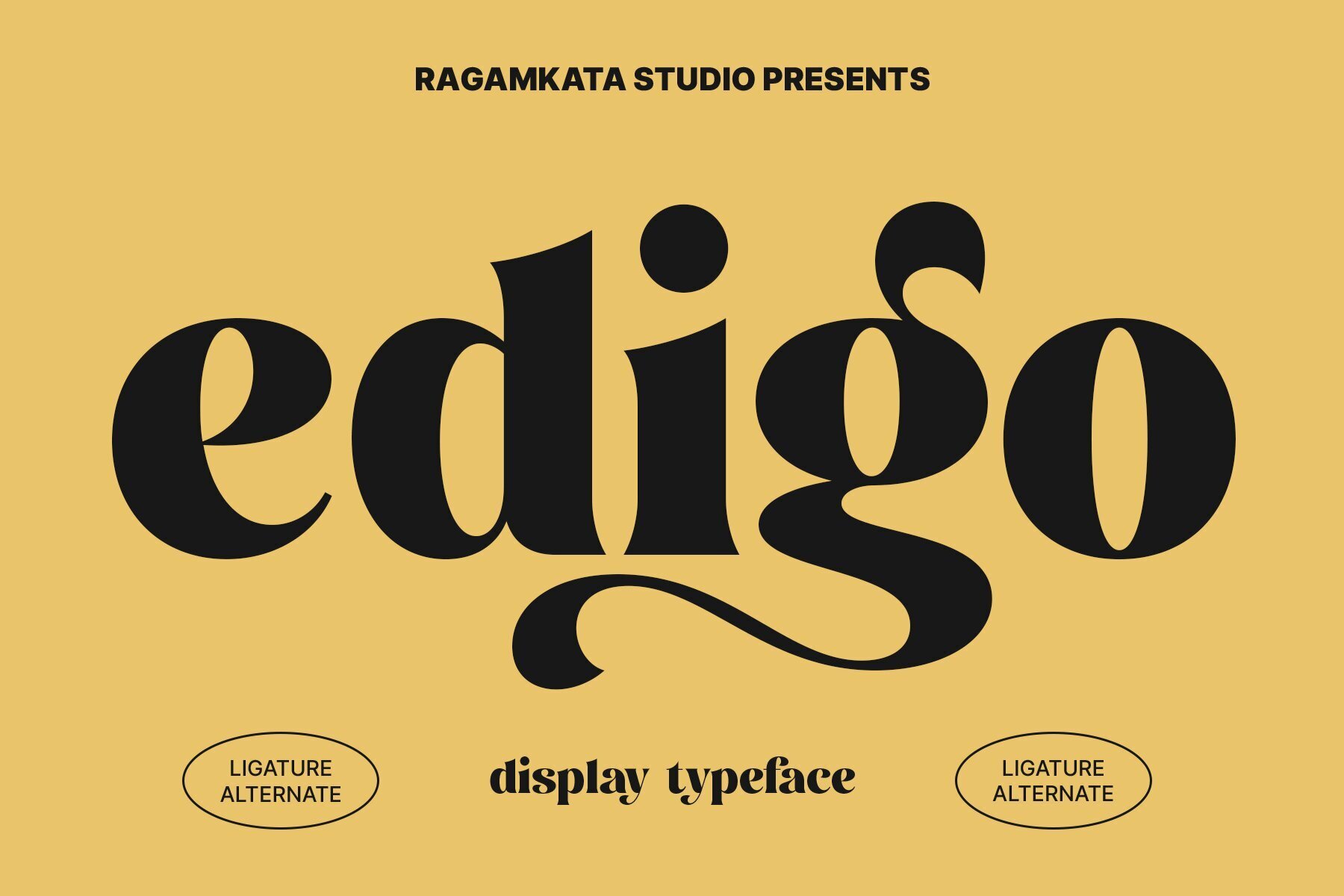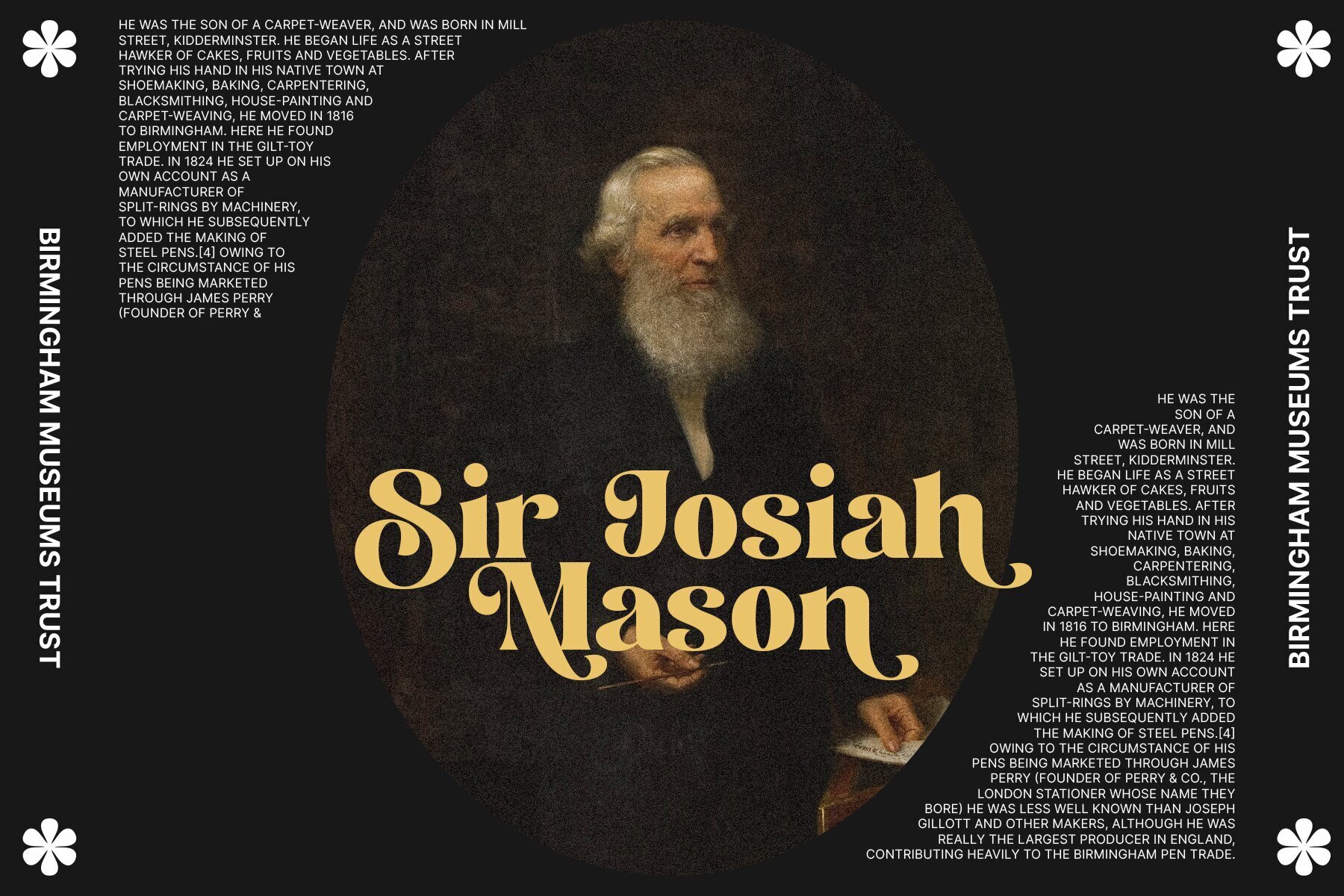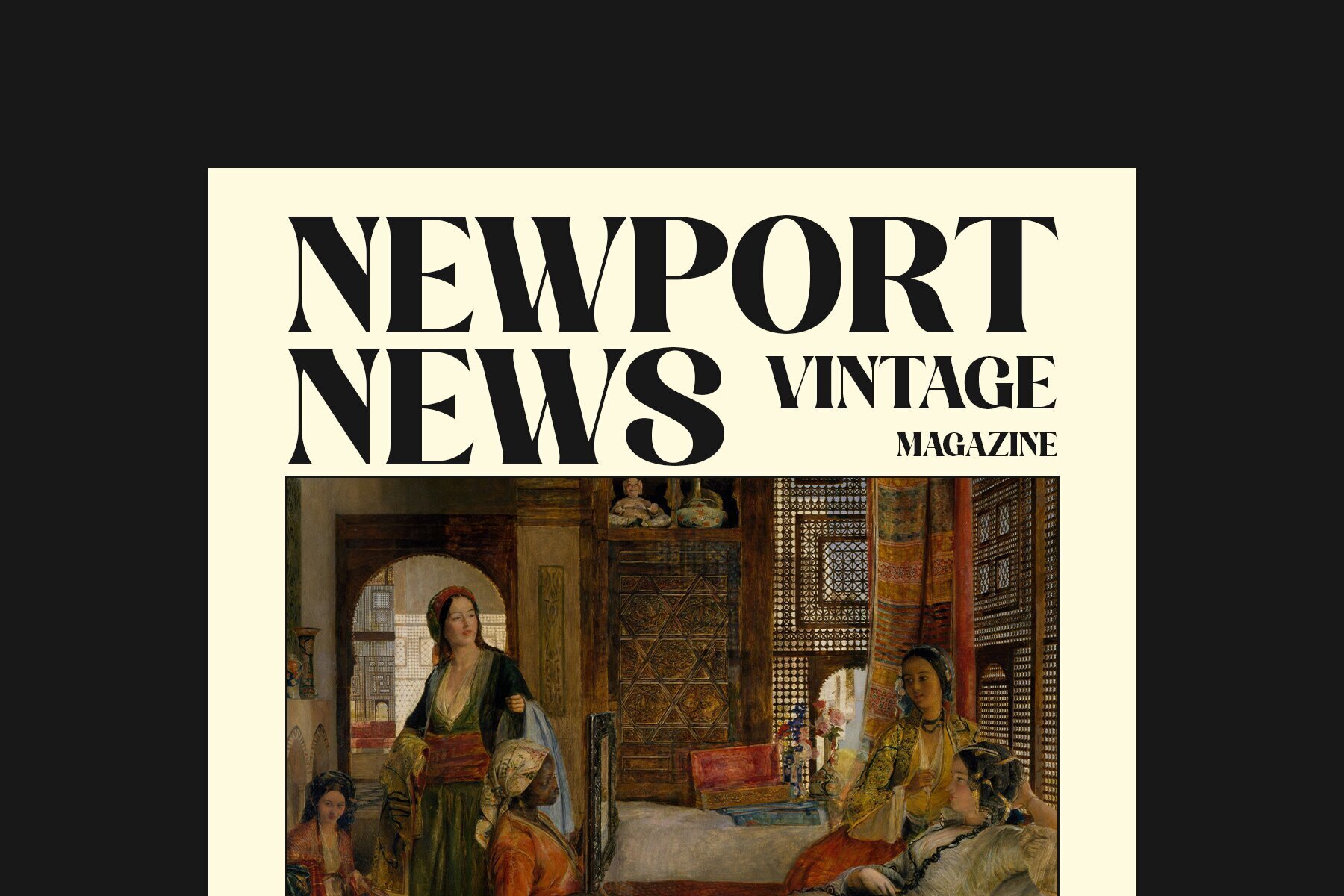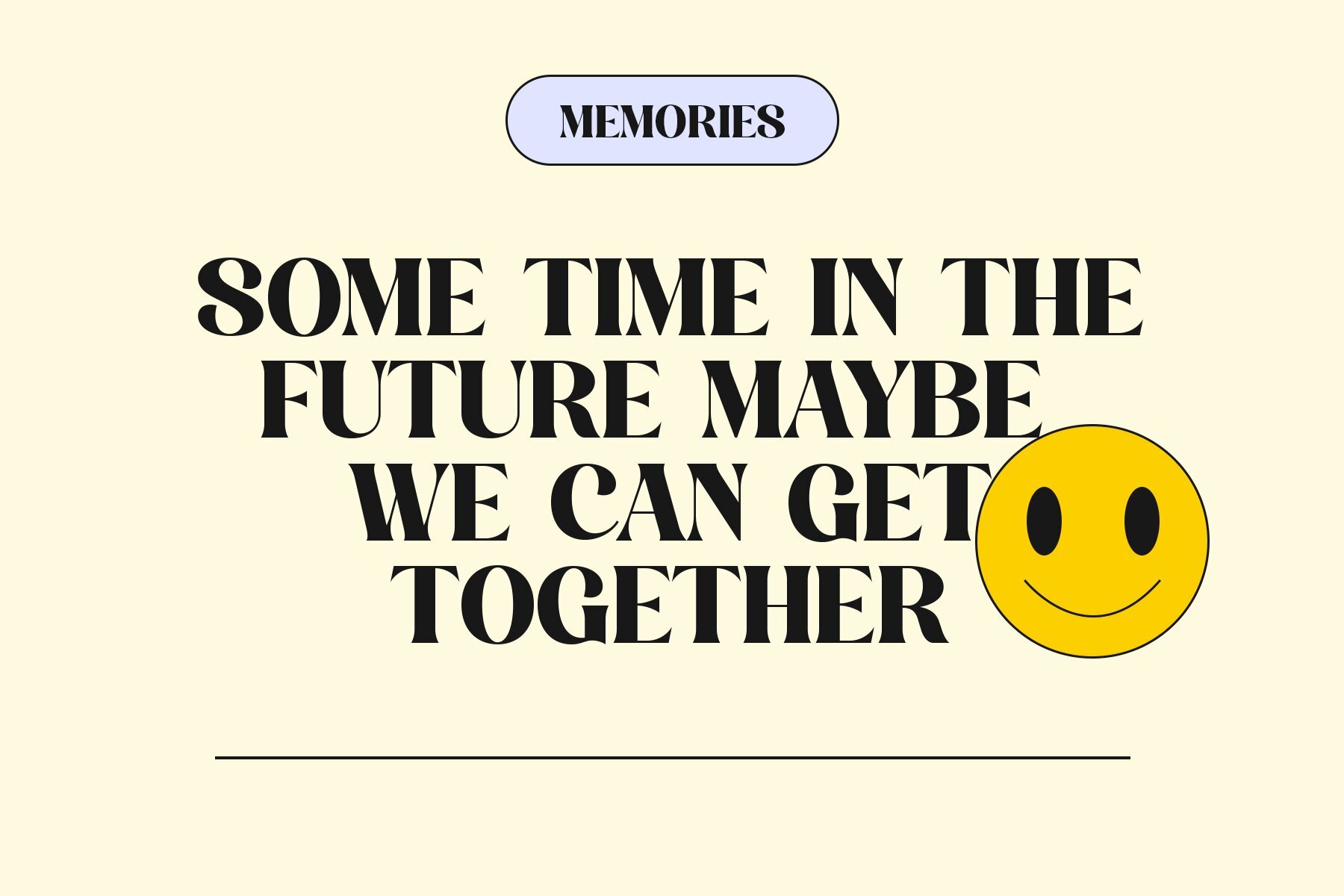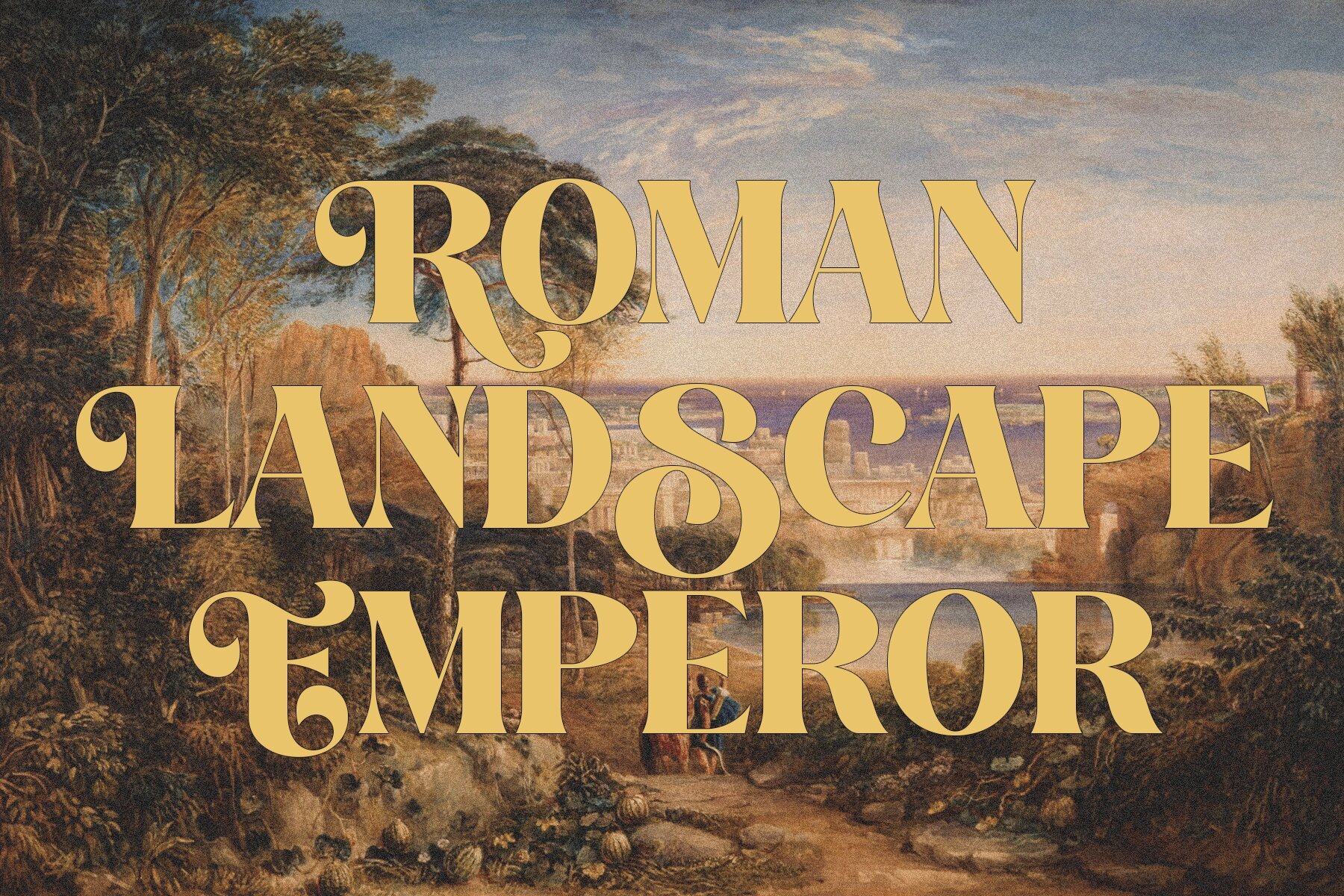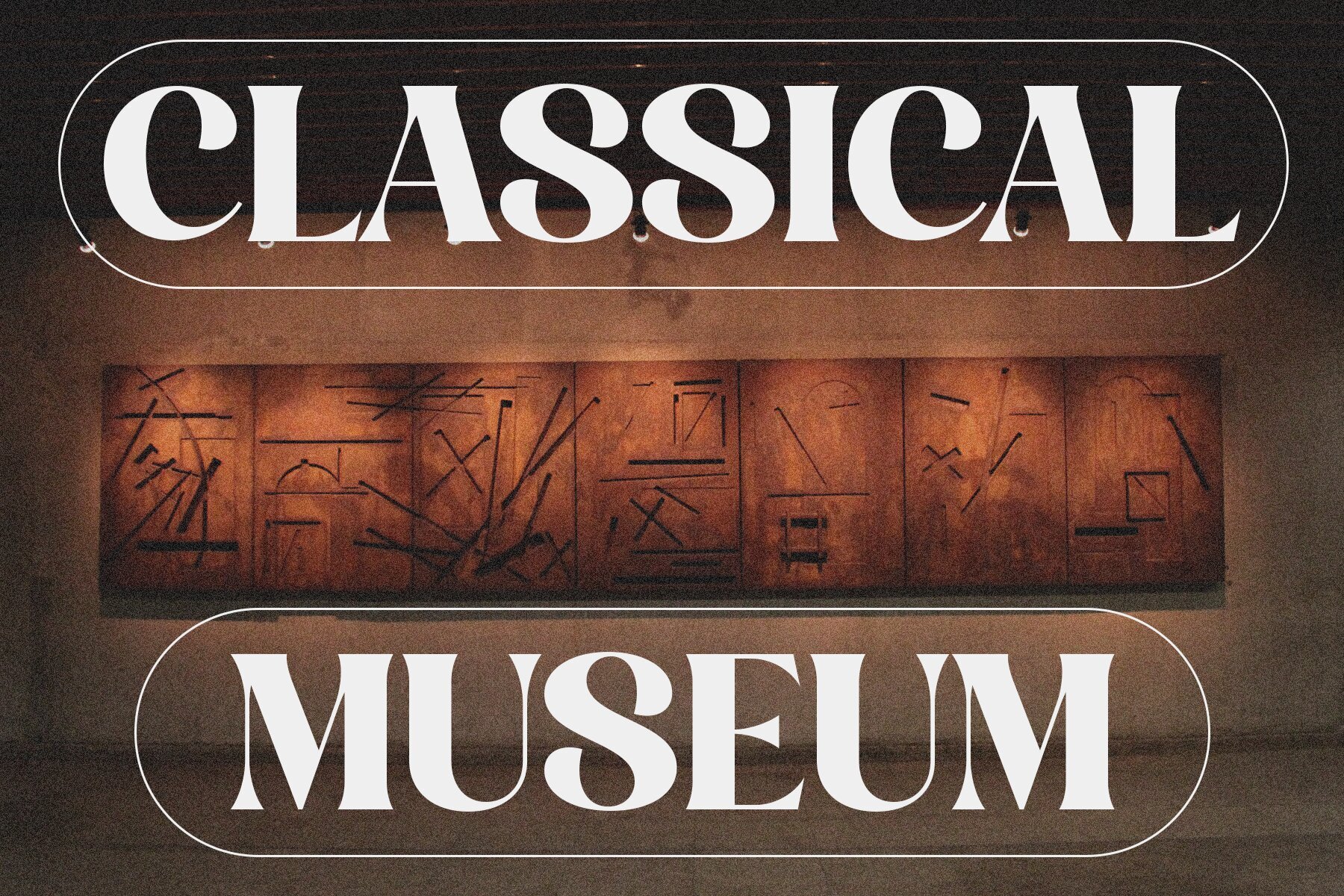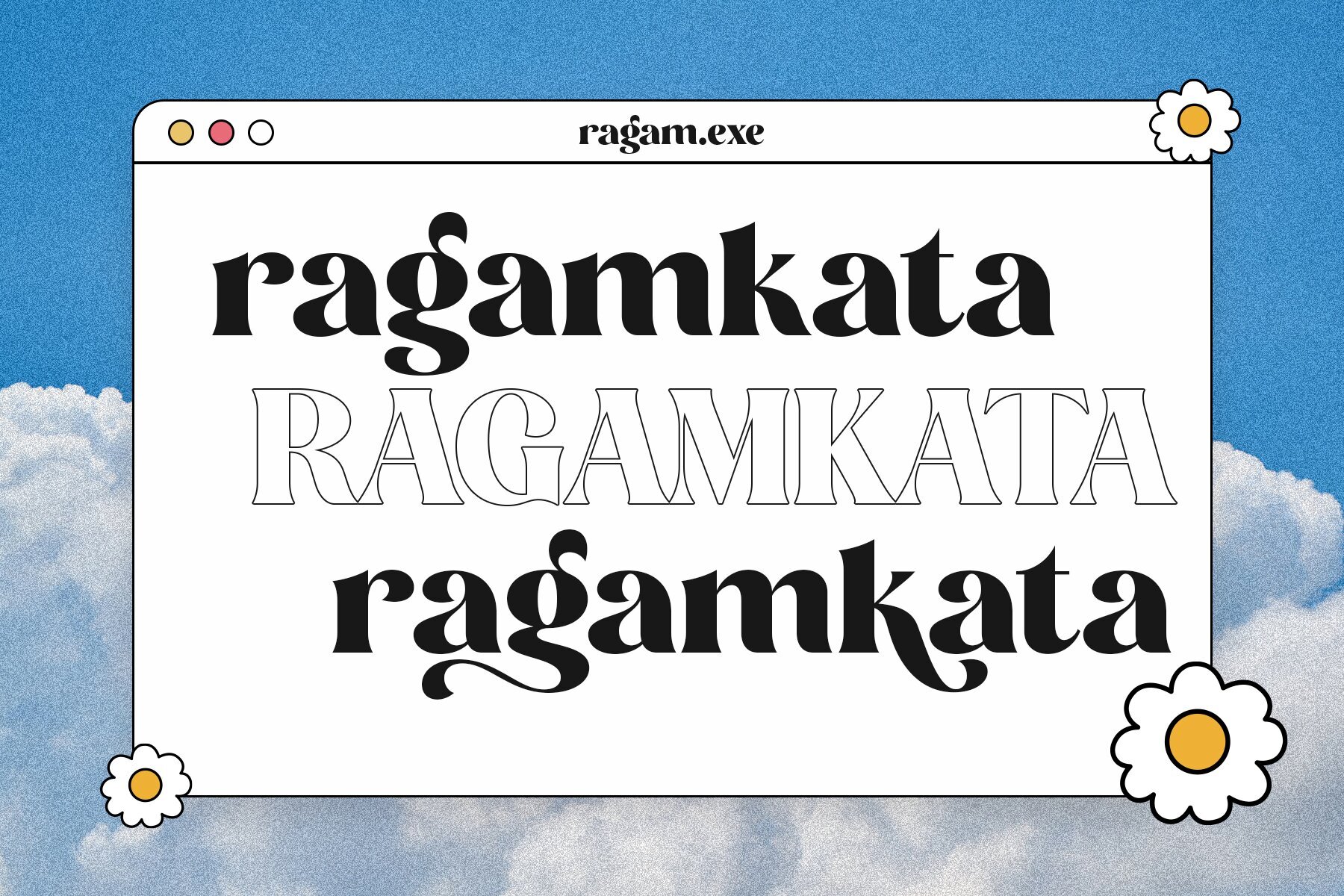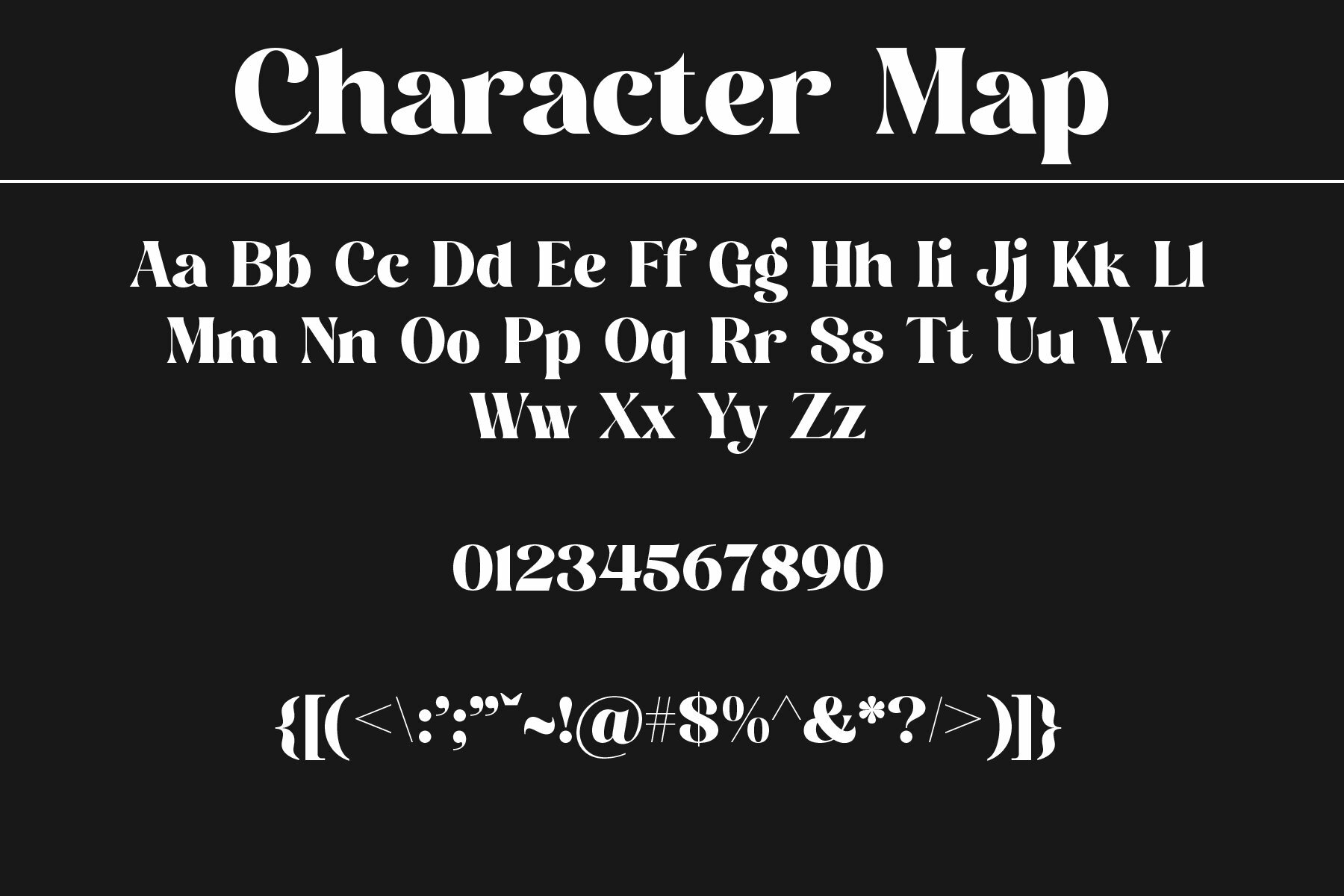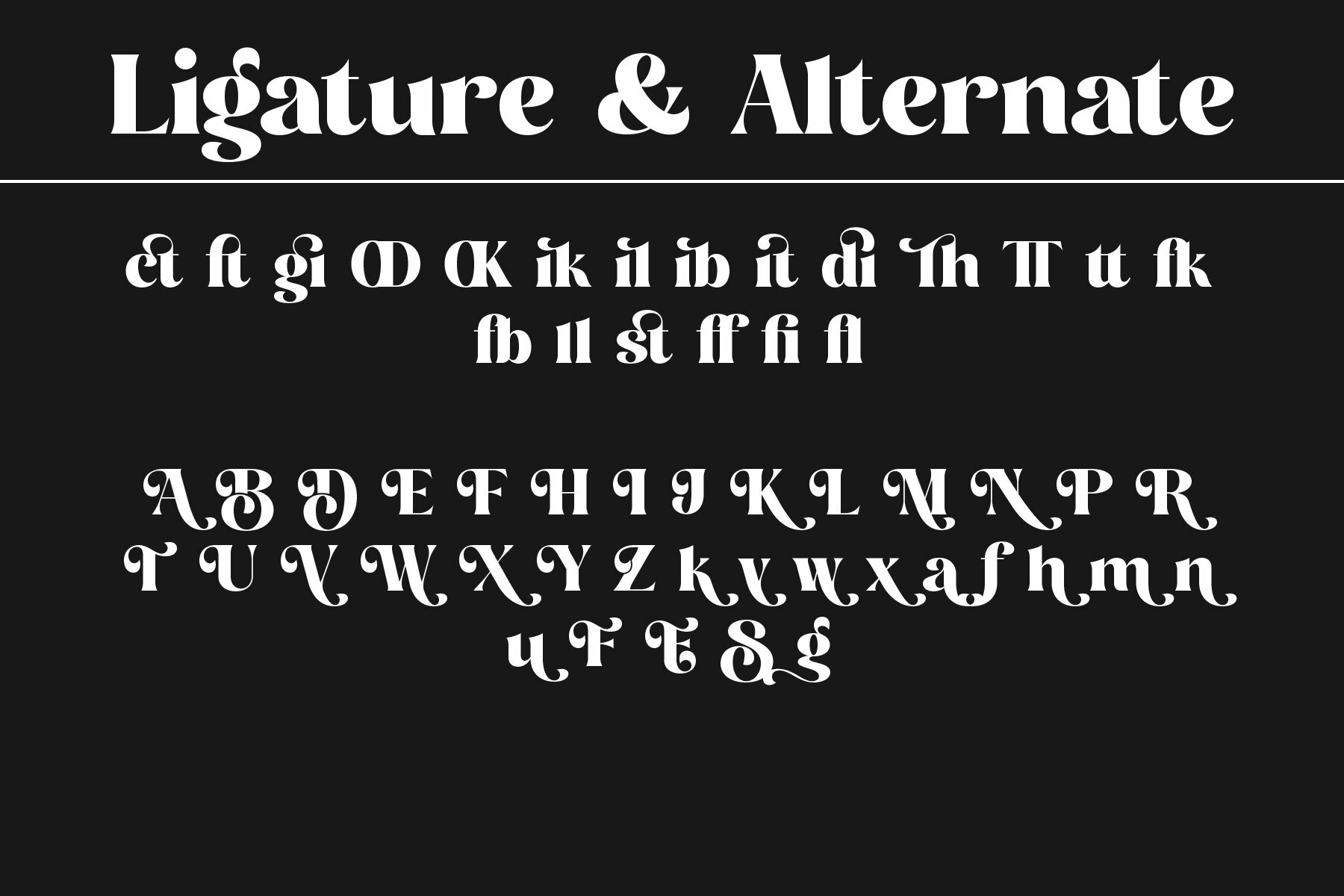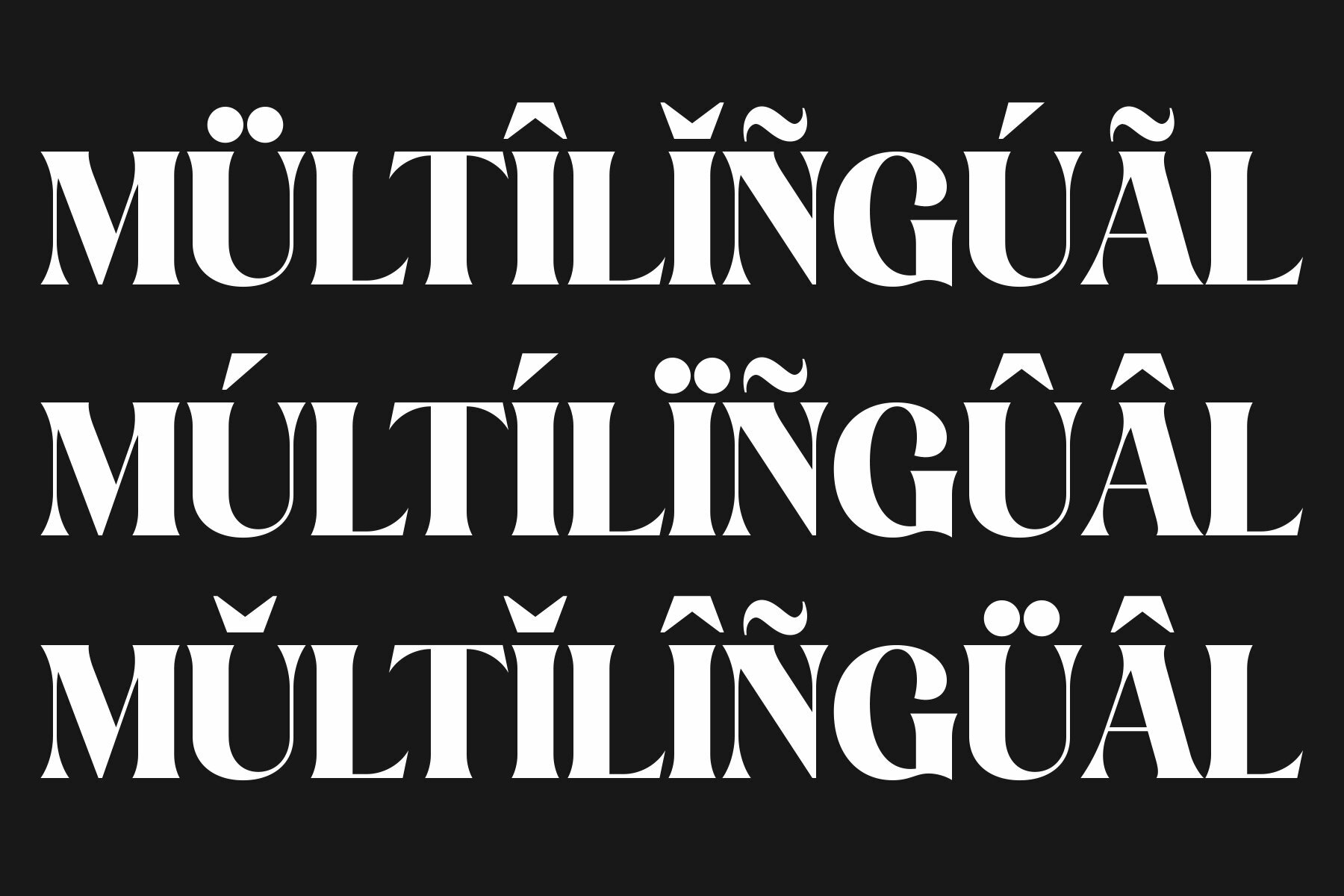
Edigo Font
Edigo Regular
Edigo seamlessly melds modern aesthetics with retro chic, creating a versatile display typography that brings a touch of classic elegance to any project. Its bold strokes and vintage-inspired curves make it an ideal choice for designers looking to blend nostalgia with contemporary style. Perfect for applications such as logos, headlines, and posters, Edigo is sure to leave an impression in today’s design landscape.
Featuring ligatures, alternates, and comprehensive character support including letters, numbers, symbols, and punctuation, Edigo requires no special software—it's even compatible with Canva. Additionally, it supports multiple languages, enhancing its versatility for diverse projects. Embrace the fusion of retro and modern design with Edigo, and let your creativity flow.